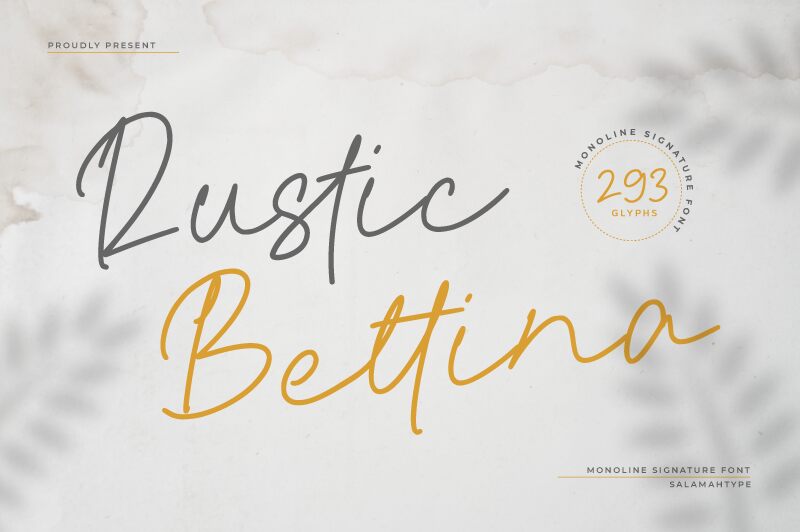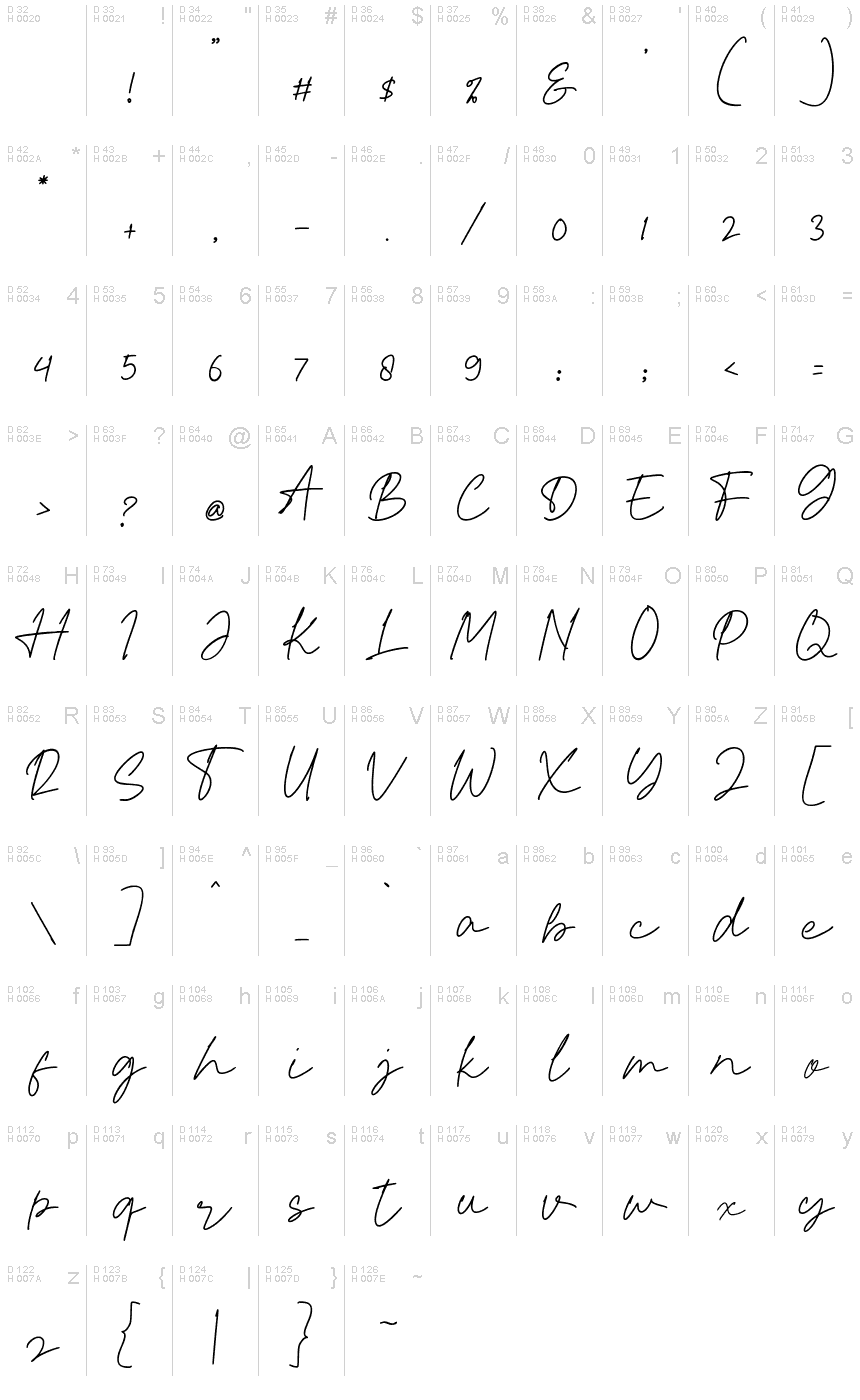
Rustic Bettina
Rustic Bettina, crafted by Salamahtype.com, is a captivating handwritten font that effortlessly combines elegance with a touch of whimsy. With its light weight, this font exudes a graceful charm, making it perfect for a wide range of creative projects. Imagine using Rustic Bettina to bring a delicate and organic feel to wedding invitations, feminine branding materials, or even children's book covers. Its unique character and fluid strokes will surely add an enchanting and personal touch to any design endeavor. Unleash your creativity with Rustic Bettina - the delightful handwritten font that tells your story beautifully.